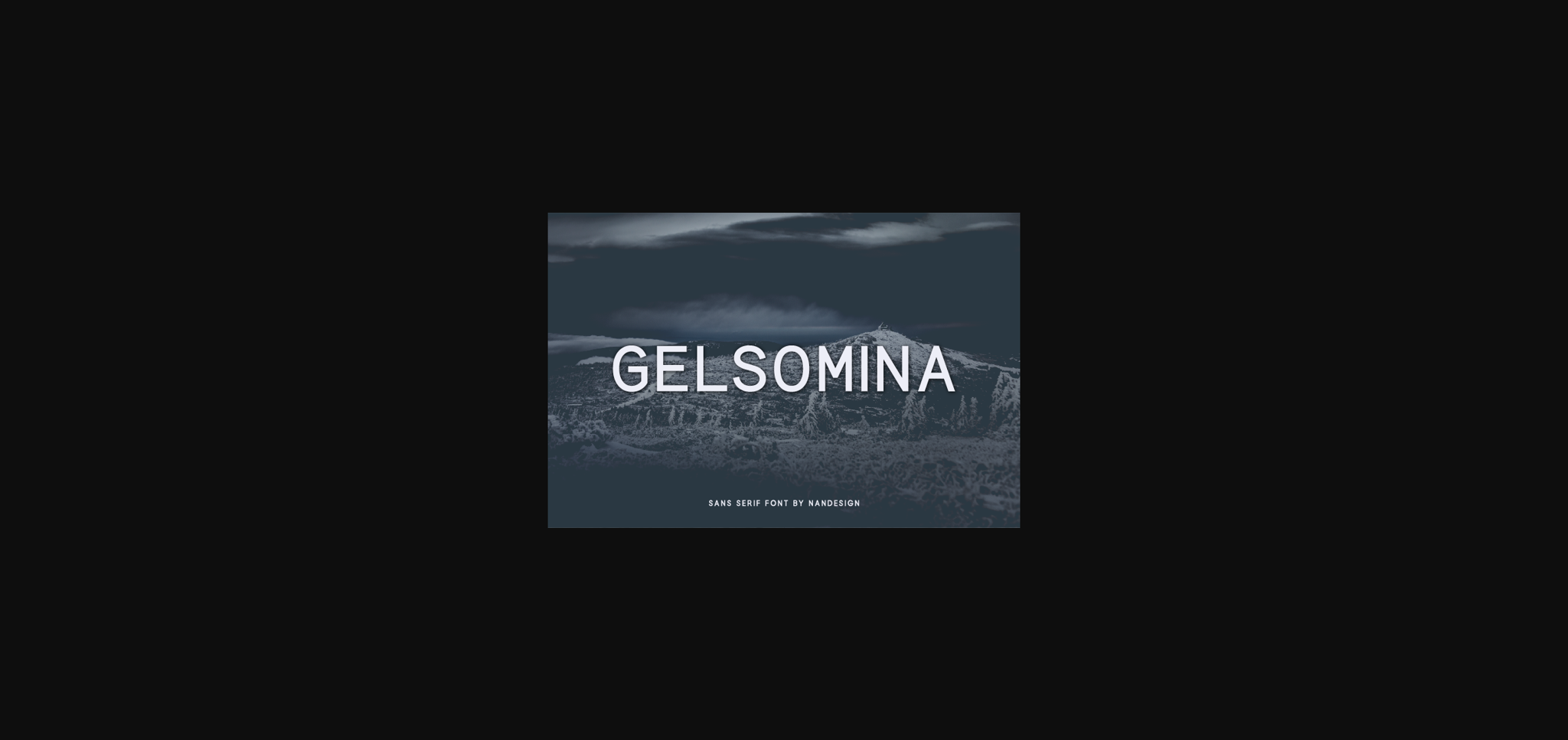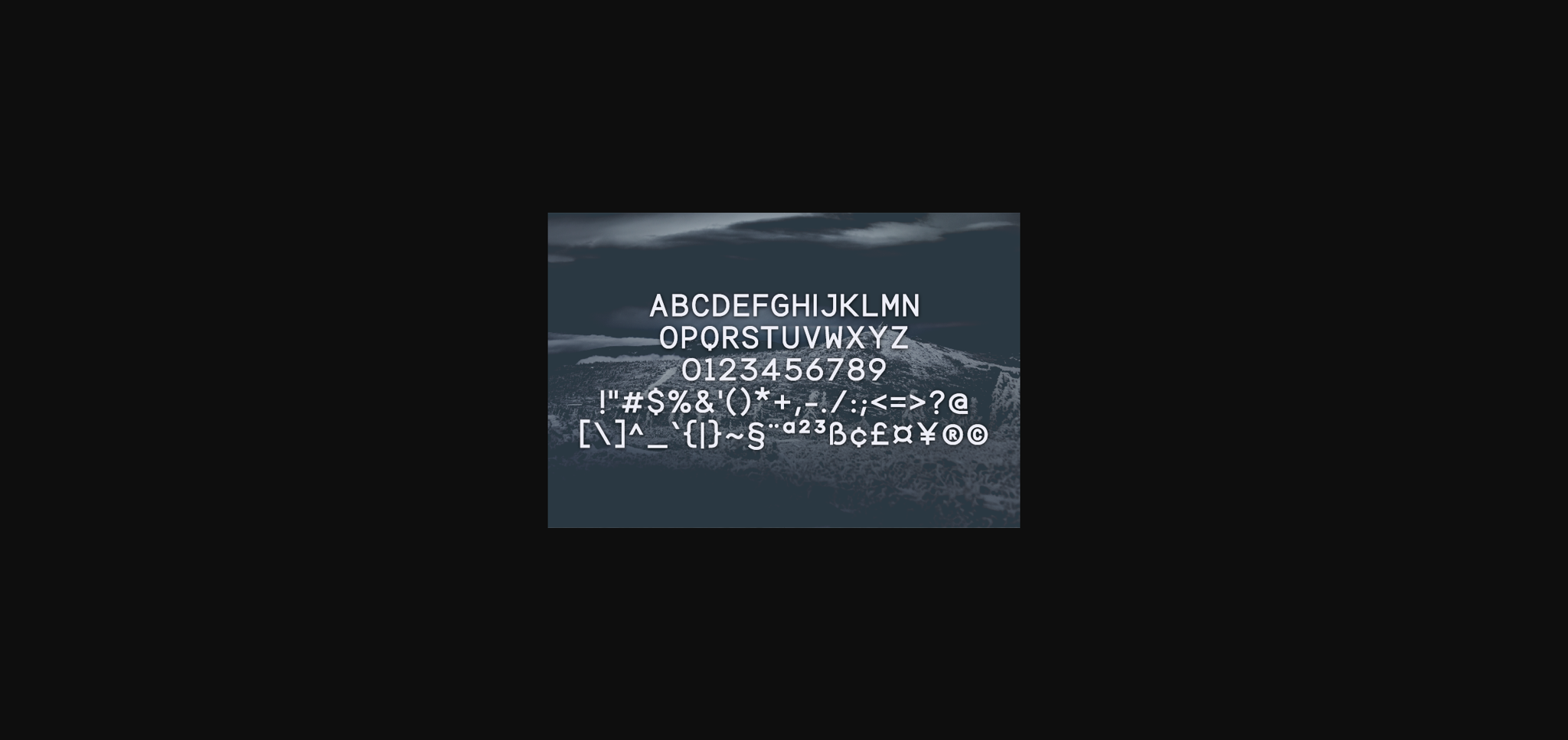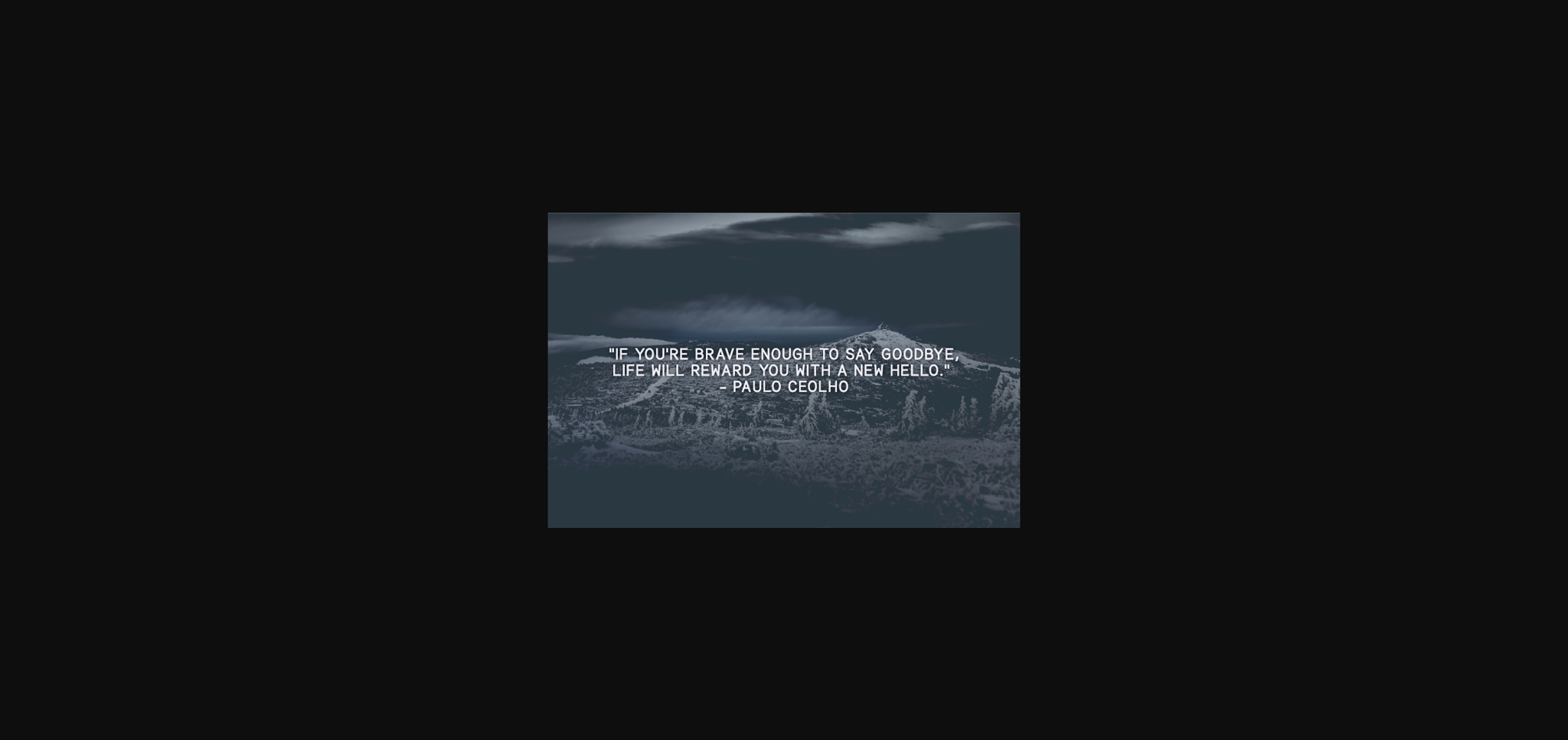
Gelsomina Font
About Gelsomina Font
Gelsomina is a modern and elegant sans serif font. It can be used for various purposes such as logos, invitations, headings, t-shirts, letterhead, signage, labels, news, posters, badges and so much more.